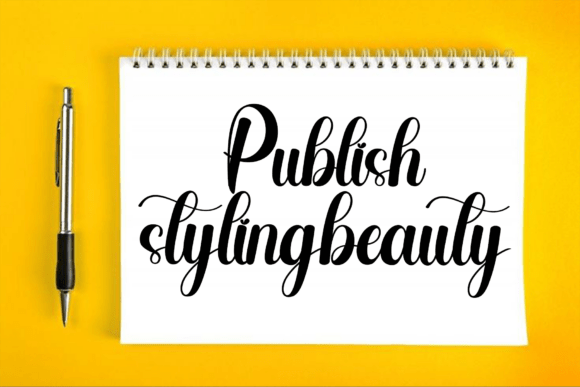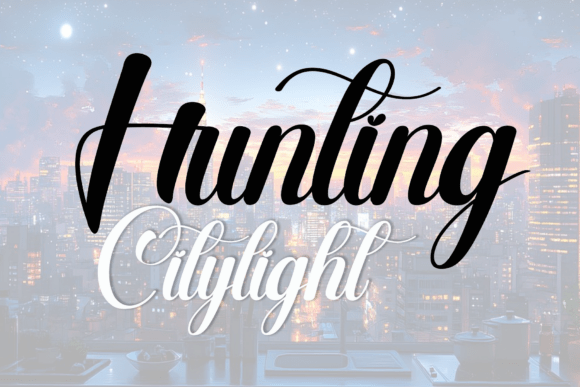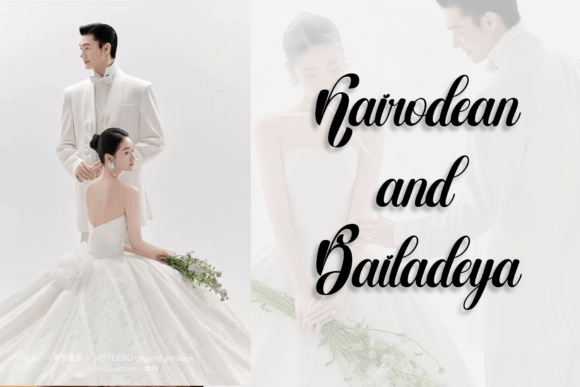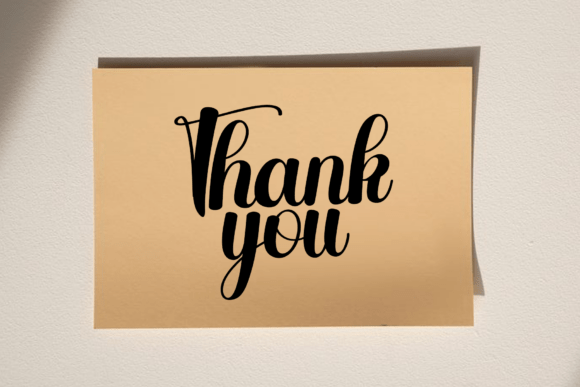
Introduction to Kingdom Beach Font
Remember that moment when you’re brainstorming ideas for a creative project, and the perfect font suddenly pops into your head? It’s like the missing piece of the puzzle that brings everything together. For designers, finding the right font can make all the difference between a good design and a great one. And that’s exactly what Kingdom Beach Font is – a stylish handwritten font that adds a touch of sophistication to any project.
With its contemporary atmosphere and impeccable form, Kingdom Beach Font is inspired by the timeless classic calligraphy. Its balanced and varied design makes it perfect for enhancing the beauty of your projects. Whether you’re working on a logo, a poster, or a social media graphic, Kingdom Beach Font is a valuable design resource that will elevate your creative vision.
Key Features of Kingdom Beach Font
- High-quality design resource for creative projects, ideal for beach-themed and tropical designs.
- Includes a variety of characters, including uppercase and lowercase letters, numbers, and special symbols.
- Features a transparent background, allowing for easy customization and seamless integration with other design elements.
- Designed with a modern and playful aesthetic, making it perfect for a range of creative projects, from posters to invitations.
Honest Review: Kingdom Beach Font
I recently stumbled upon the Kingdom Beach Font, and I must say, it’s a great addition to my design resources. This font is perfect for creative projects that require a laid-back, coastal vibe.
What works well about the Kingdom Beach Font is its high quality and versatility. It’s a great choice for projects that need a touch of elegance and sophistication, while still maintaining a relaxed atmosphere.
However, there are a few limitations to consider. The font may not be suitable for projects that require a more formal or corporate tone, as it can come across as a bit too casual.
Overall, I’m impressed with the Kingdom Beach Font. It’s a great design resource that can add a unique touch to your creative projects. While it may not be suitable for every project, it’s definitely worth considering for those that require a relaxed, coastal vibe.
Tips for Getting the Most Out of Kingdom Beach Font
To get the most out of the Kingdom Beach Font, consider the following tips:
- Use the font in conjunction with a transparent background for a clean and modern look.
The Kingdom Beach Font is perfect for a variety of creative projects, including:
- Travel brochures
Alternatives to Kingdom Beach Font
Pacifico is a beautiful, elegant script font perfect for creative projects that require a touch of sophistication. It’s ideal for wedding invitations, branding, and packaging design. Pacifico is a high-quality font with a transparent background, making it easy to use on any design resource. While it’s not as beachy as Kingdom Beach Font, Pacifico has a similar relaxed feel, making it a great alternative for designers who want a more refined look.
Great Vibes is a fun, cursive font that’s perfect for creative projects that need a playful touch. It’s ideal for social media graphics, advertising, and editorial design. Great Vibes has a similar laid-back feel to Kingdom Beach Font, but with a more energetic and youthful vibe. It’s a great choice for designers who want a font that’s both fun and professional.